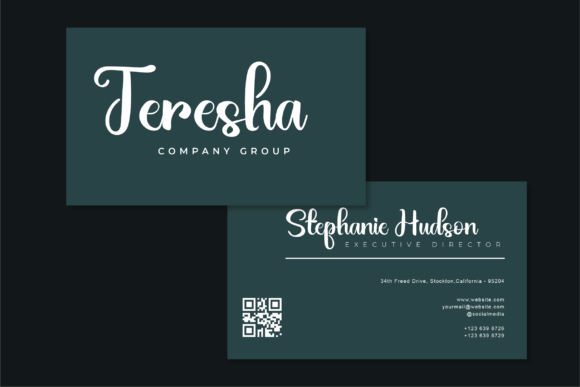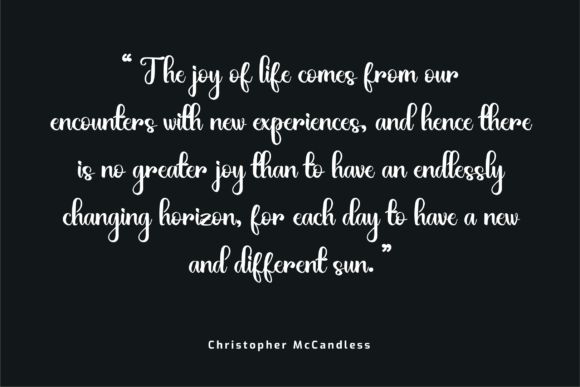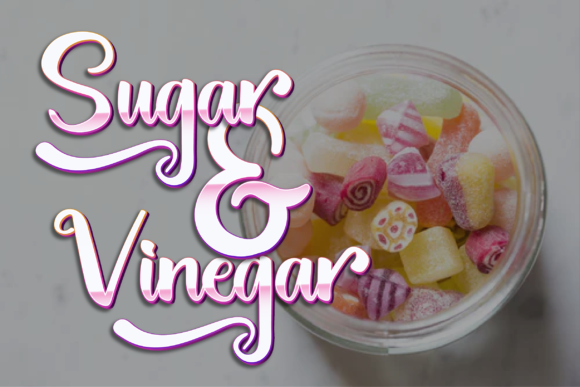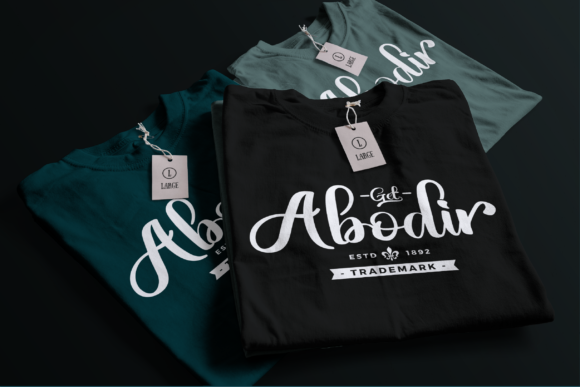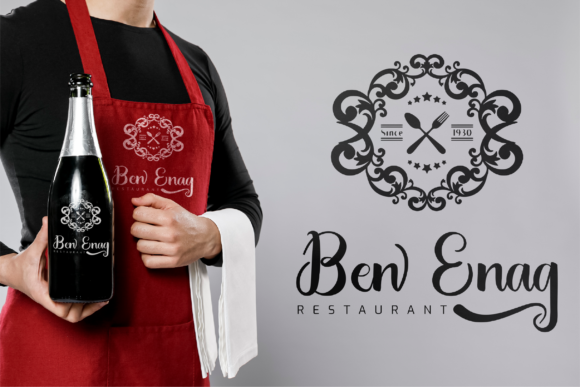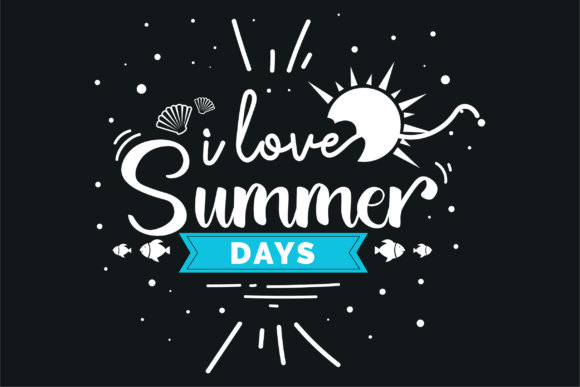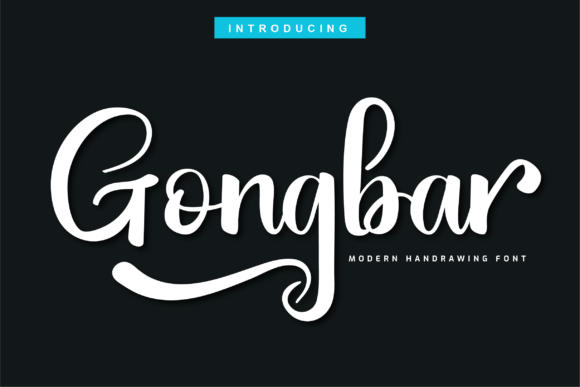
Gongbar Font: Elevate Your Designs with a Timeless Handwritten Touch
In the world of typography, few fonts manage to capture the essence of elegance and charm as effectively as the Gongbar Font. This incredibly distinct, delicate, and timeless handwritten font has been making waves in the design community, and for good reason. Its versatility and aesthetic appeal make it an ideal choice for a wide range of design projects, from wedding invitations and thank you cards to quotes, greeting cards, logos, business cards, and beyond.
The Unique Charm of Gongbar Font
What sets Gongbar Font apart is its unique blend of delicacy and sophistication. Its handwritten nature gives it a personal and intimate feel, making it perfect for designs that require a touch of warmth and personality. The font’s timeless quality ensures that it won’t go out of style anytime soon, allowing designers to create works that are not only beautiful but also enduring.
Applications of Gongbar Font
The versatility of Gongbar Font is one of its most compelling features. Here are some of the many ways designers and crafters can use this beautiful font:
• Wedding Invitations: Add a touch of elegance and romance to wedding invitations, making the occasion even more special for the couple and their guests.
• Thank You Cards: Personalize thank you cards with a handwritten touch that feels both luxurious and heartfelt.
• Quotes: Give quotes a unique and visually appealing look that stands out on social media, blogs, or printed materials.
• Greeting Cards: Whether it’s for a birthday, anniversary, or holiday, Gongbar Font can add a warm and welcoming feel to greeting cards.
• Logos: For businesses that want to convey a sense of tradition, elegance, or personal touch, Gongbar Font can be a great choice for logo design.
• Business Cards: Stand out in the professional world with business cards that feature a sophisticated yet approachable font.
Why Designers and Crafters Love Gongbar Font
Designers and crafters are always on the lookout for fonts that can help their creations stand out. Here are a few reasons why Gongbar Font has become a favorite:
• Ease of Use: Despite its elegant appearance, Gongbar Font is surprisingly easy to read and work with, making it accessible for a wide range of projects.
• Customization: The font’s handwritten nature allows for a lot of flexibility in terms of customization, enabling designers to bring their unique vision to life.
• Emotional Connection: The personal feel of Gongbar Font helps create an emotional connection with the audience, which is invaluable for designs meant to engage or inspire.
Tips for Using Gongbar Font Effectively
To make the most of Gongbar Font, consider the following tips:
• Pair with Complementary Fonts: While Gongbar Font is beautiful on its own, it can be even more striking when paired with complementary fonts that enhance its features.
• Play with Colors: The right color scheme can elevate the look of Gongbar Font. Experiment with different colors to find the perfect match for your design.
• Consider the Context: Think about the message you want to convey and the audience you’re targeting. This will help you decide how to best utilize Gongbar Font in your design.
Gongbar Font is more than just a font; it’s a design element that can transform your projects with its delicate and timeless handwritten charm. Whether you’re a professional designer or a crafter looking to add a personal touch to your creations, Gongbar Font is an excellent choice. Its versatility, aesthetic appeal, and the emotional connection it helps create make it a valuable addition to any design toolkit. So, why settle for ordinary when you can create something truly extraordinary with Gongbar Font?